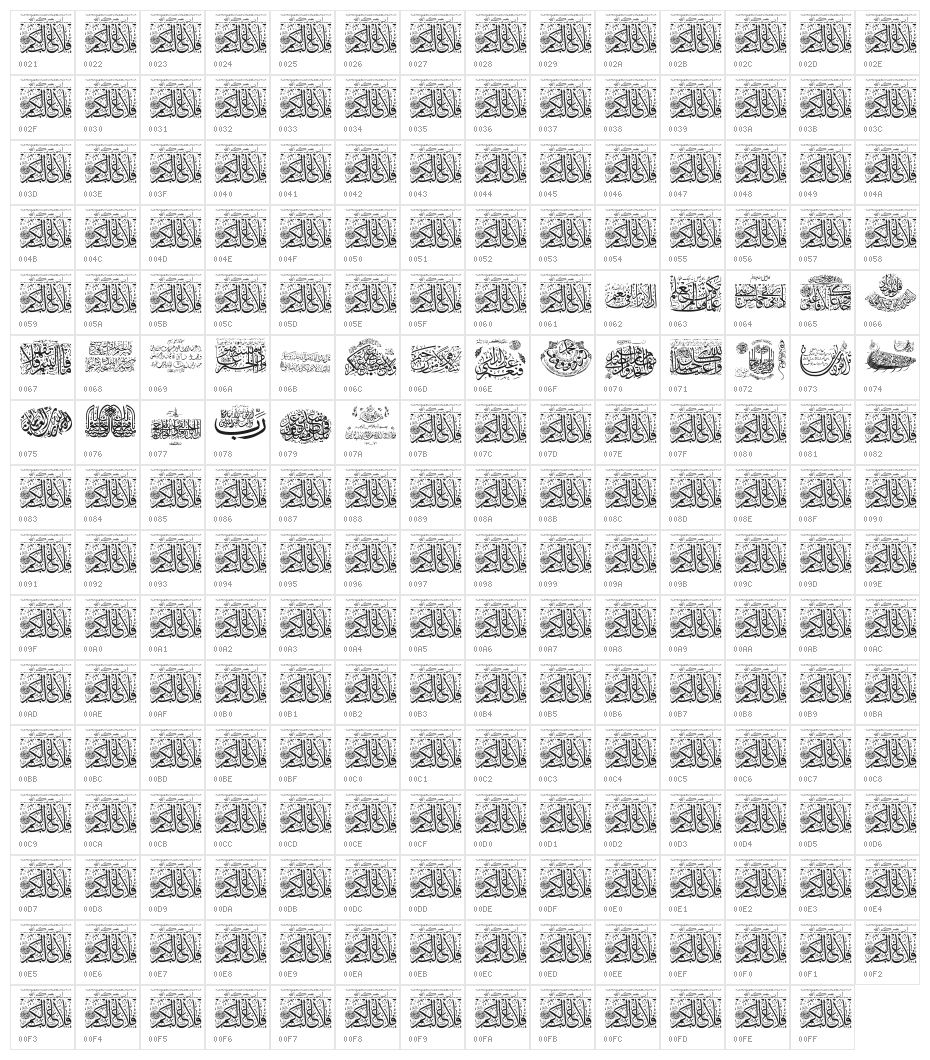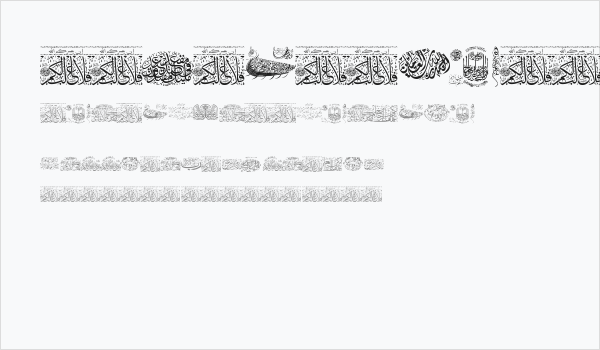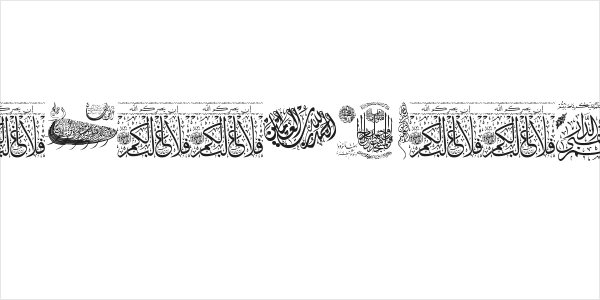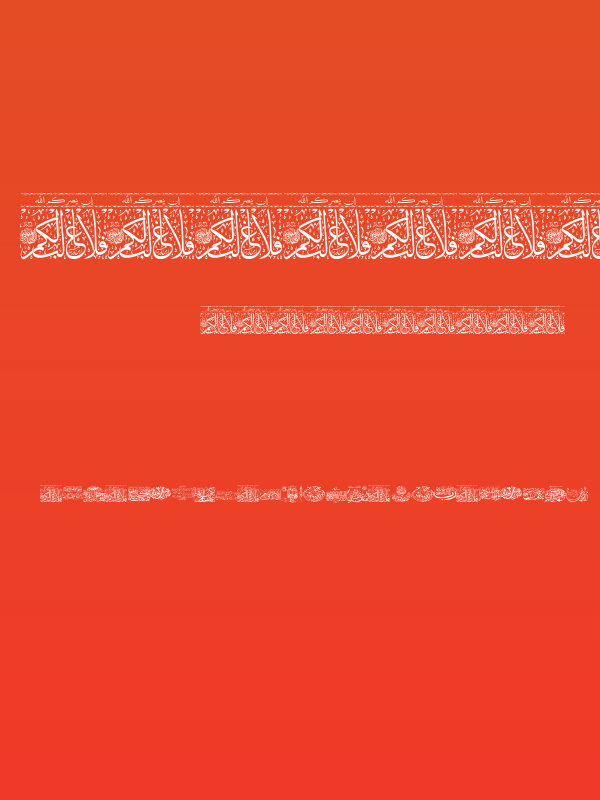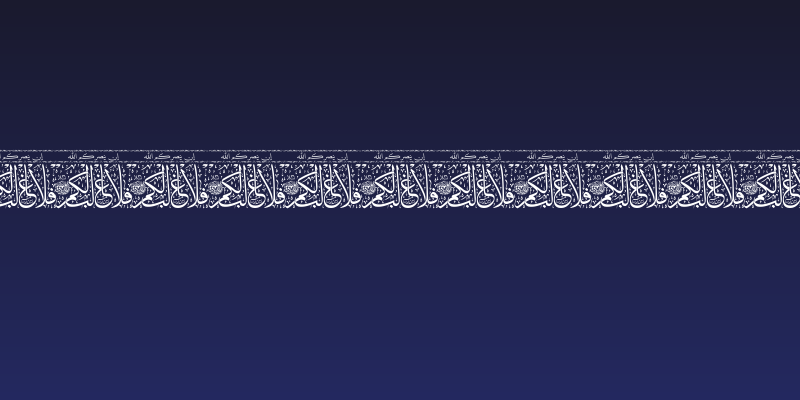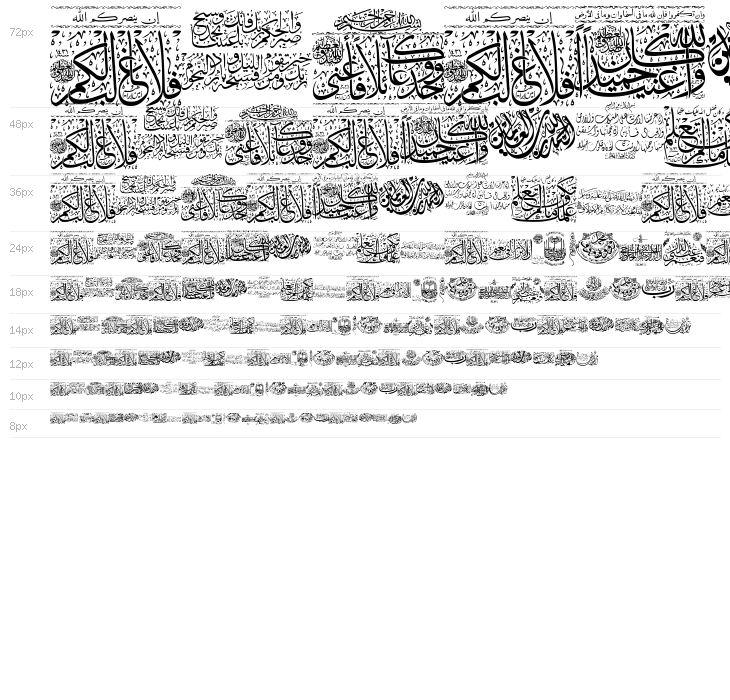
Aayat Quraan 11 Font
Aayat Quraan 11 Description
Highly decorative Arabic script with intricate calligraphic flourishes and ornamental borders, featuring dense, interconnected letterforms and elaborate diacritical marks, often used for religious or ceremonial purposes.
| Overall Style | Decorative, Traditional, Religious |
| Use Case | Religious headings, ceremonial documents, decorative artwork |
| Proposed Projects | Religious texts, ceremonial documents, Islamic art, decorative panels, invitations. |